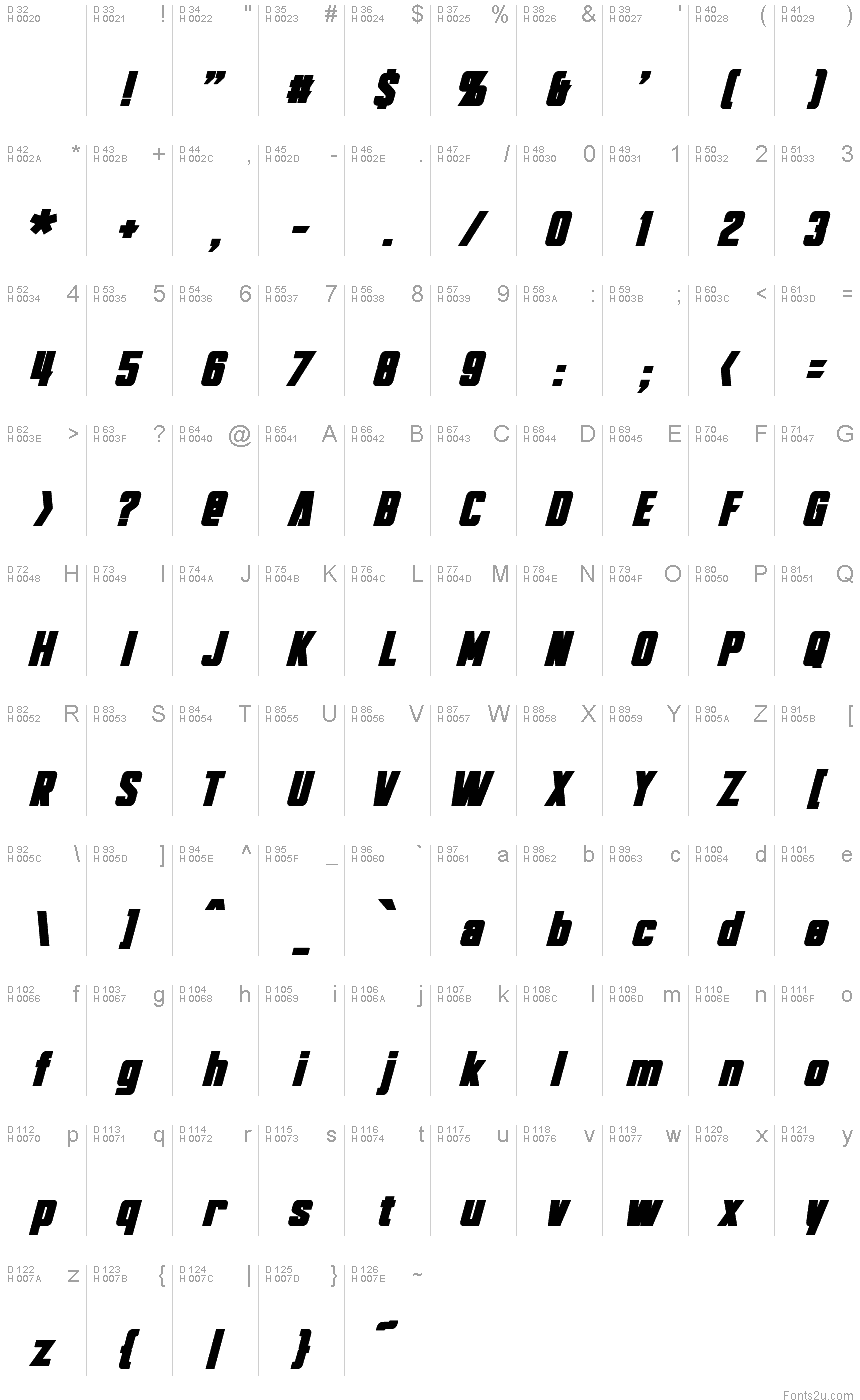
Bayformance Bold Italic
Bayformance is a simple, bold, technical-based typeface inspired by the title logo from Michael Bay's Transformers 4: Age of Extinction. Includes full alphabet, punctuation, extended character set, and Euro. Includes italic, bold, and bold italic versions.